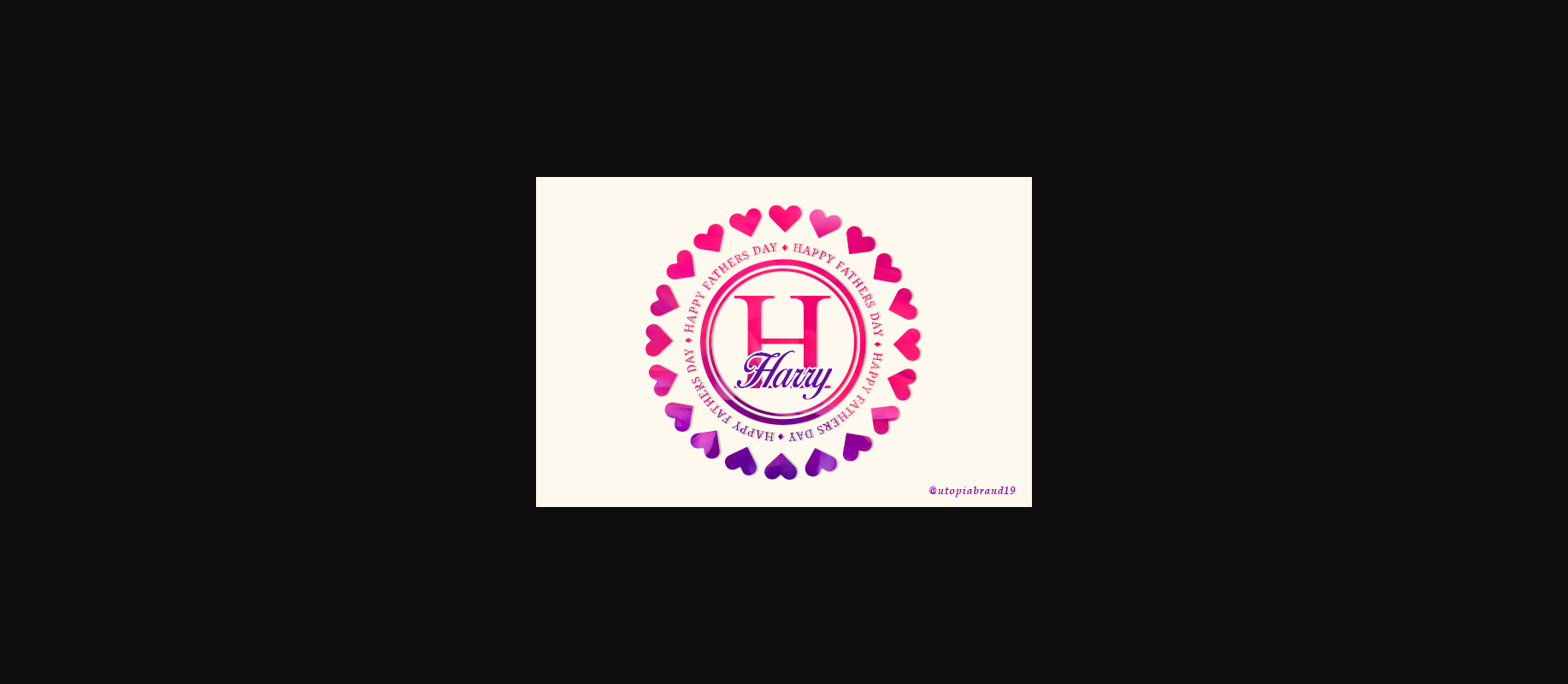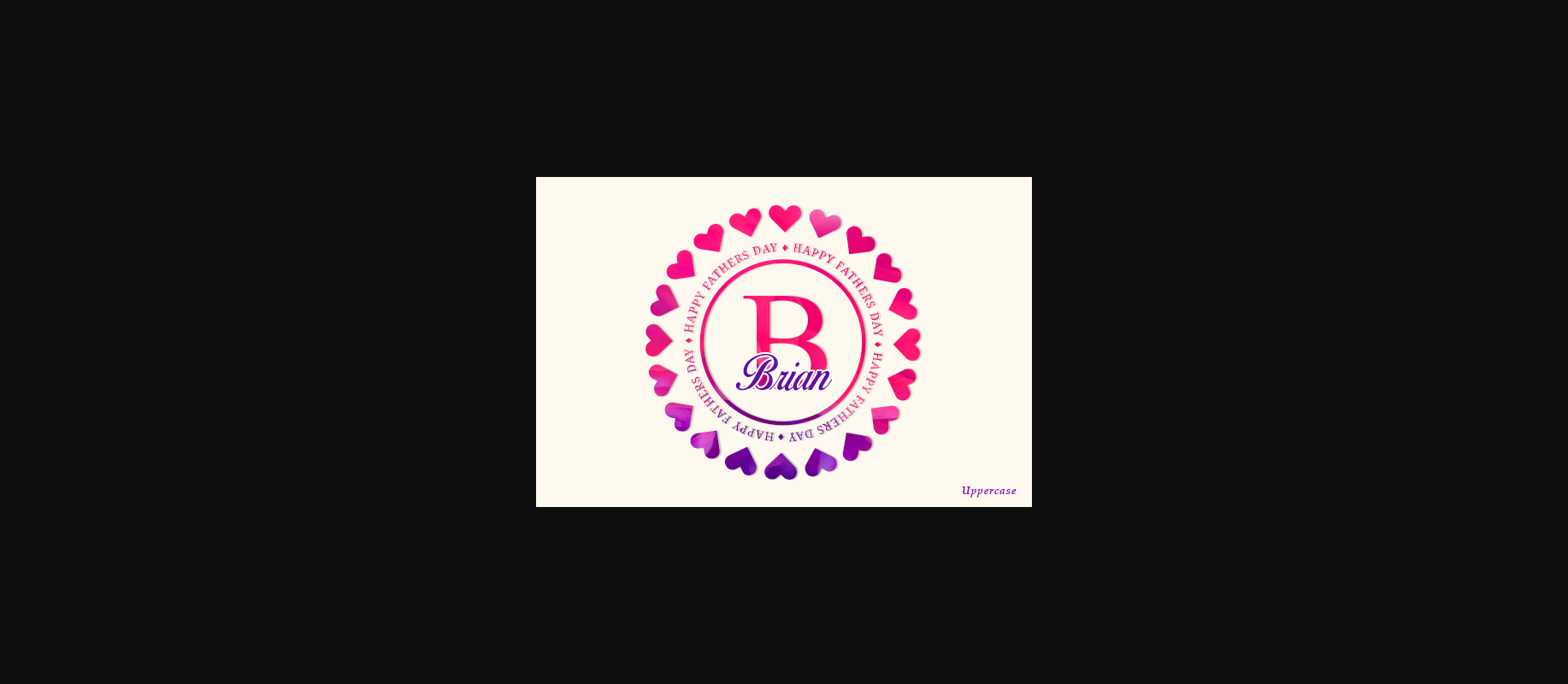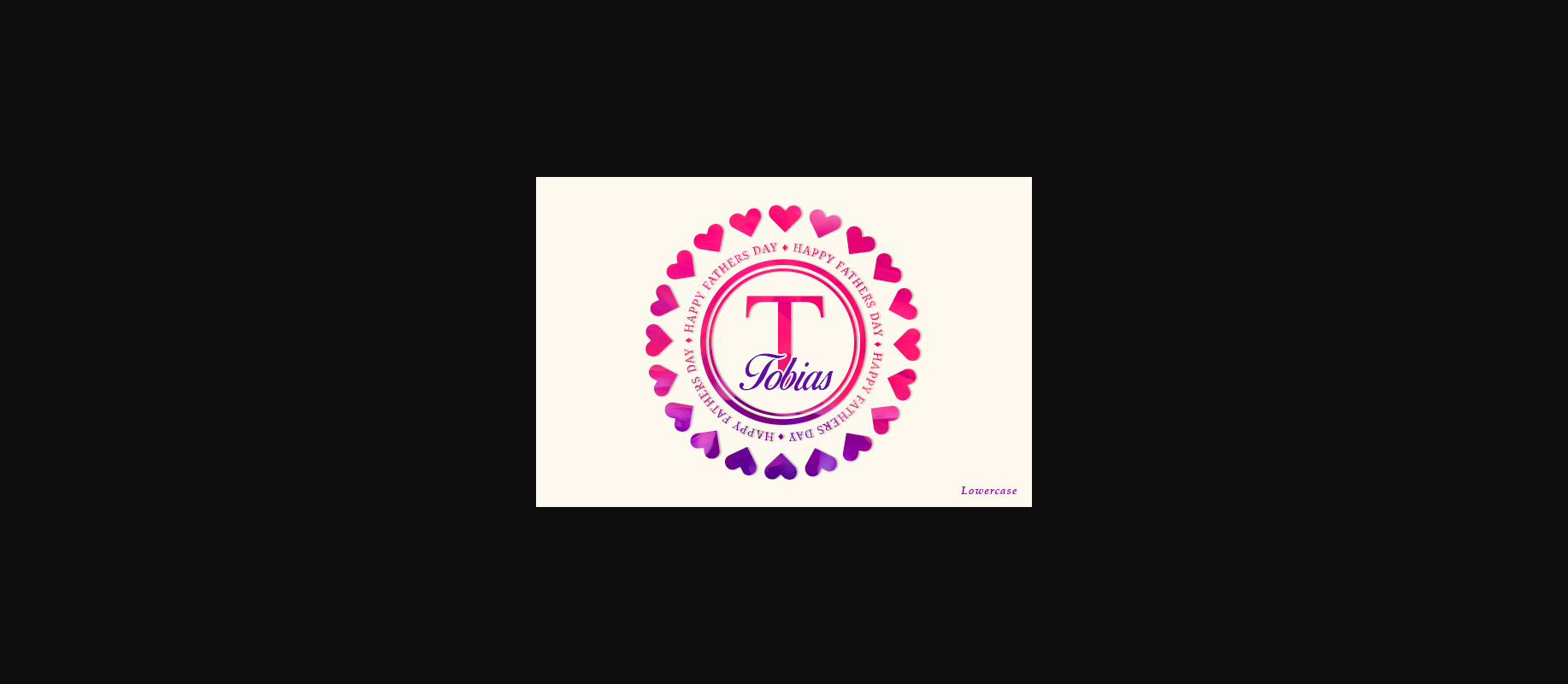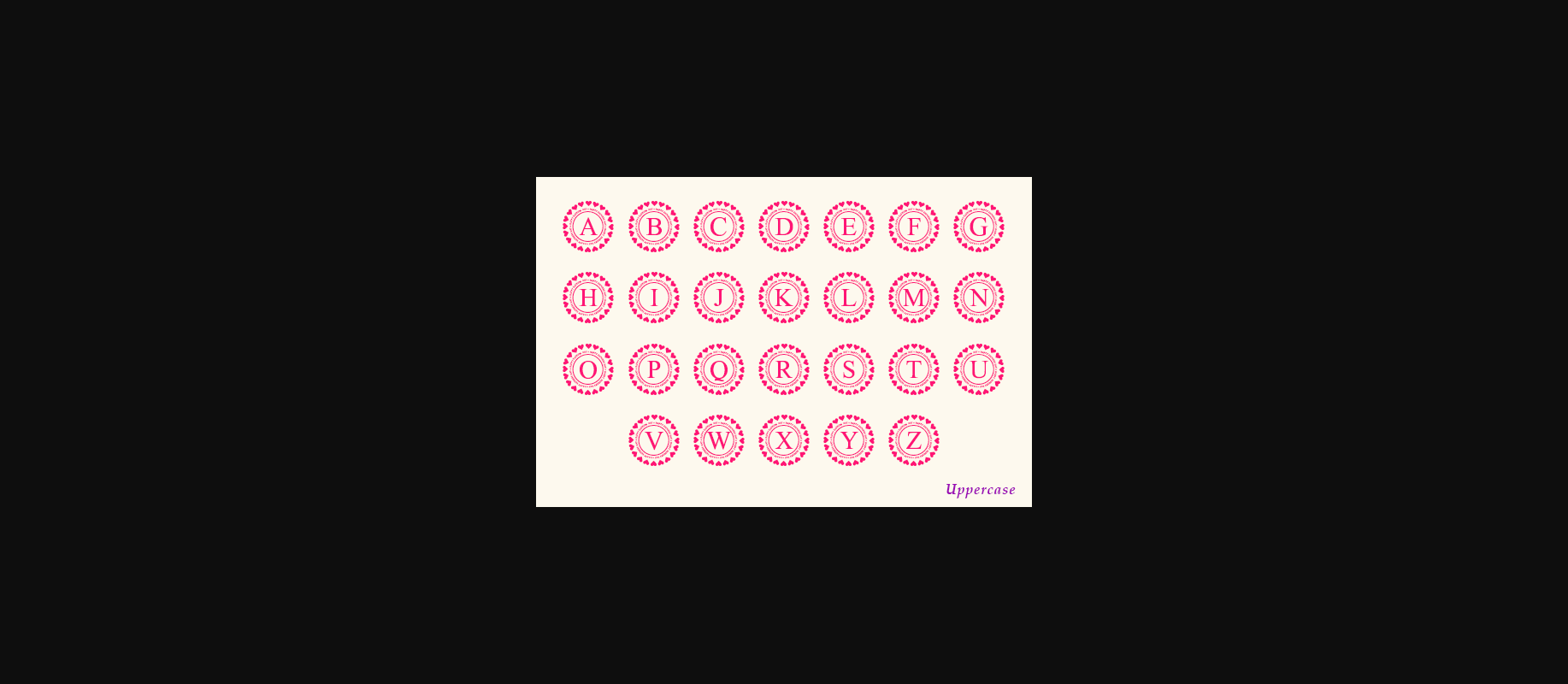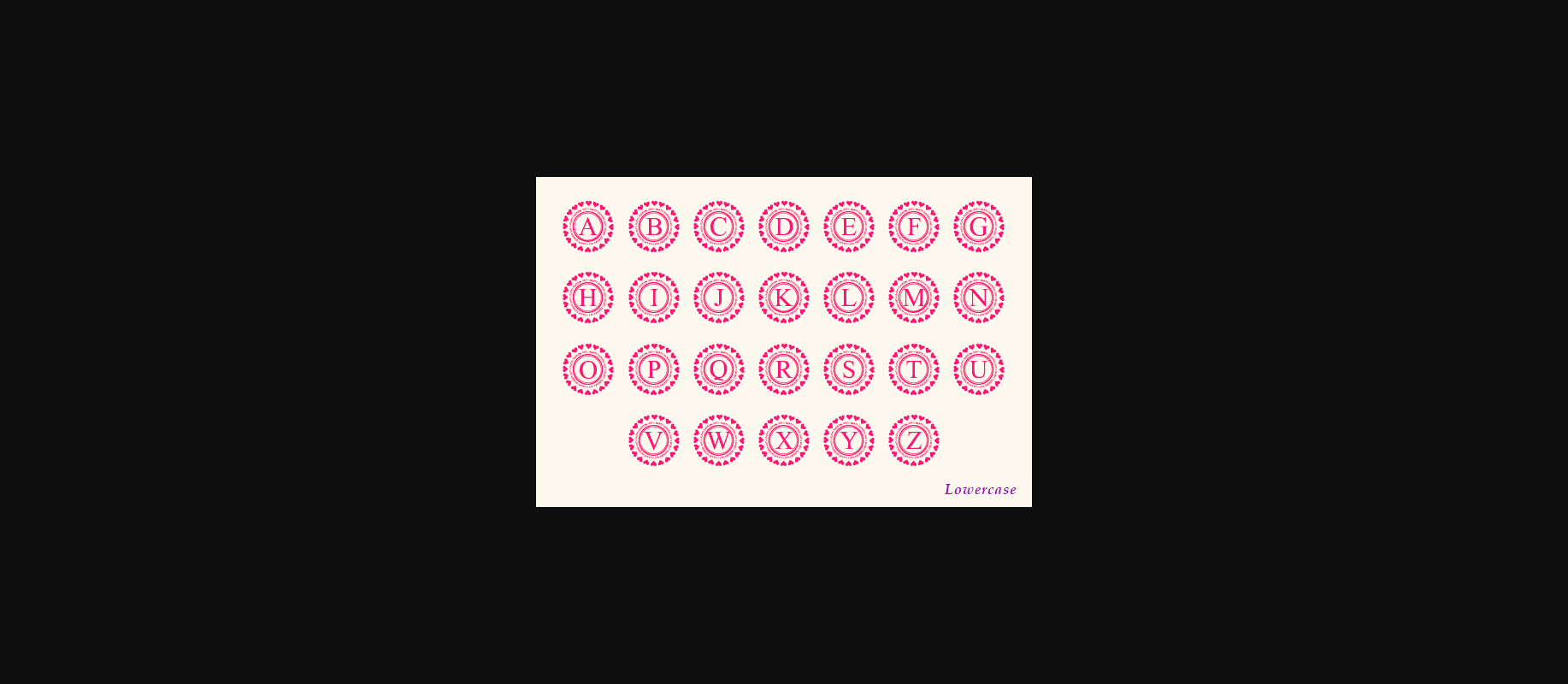
Happy Fathers Day Font
About Happy Fathers Day Font
Happy Fathers Day Monogram is a charming decorative font. Fall in love with its authentic feel and use it to create gorgeous invitations, beautiful stationary art, eye-catching social media posts, and cute greeting cards.